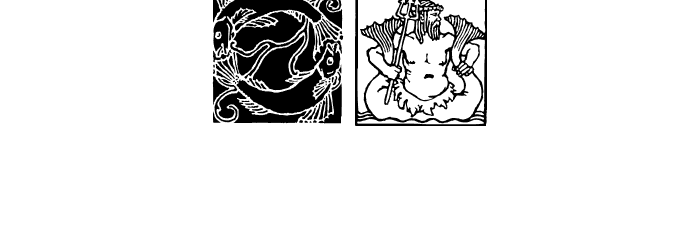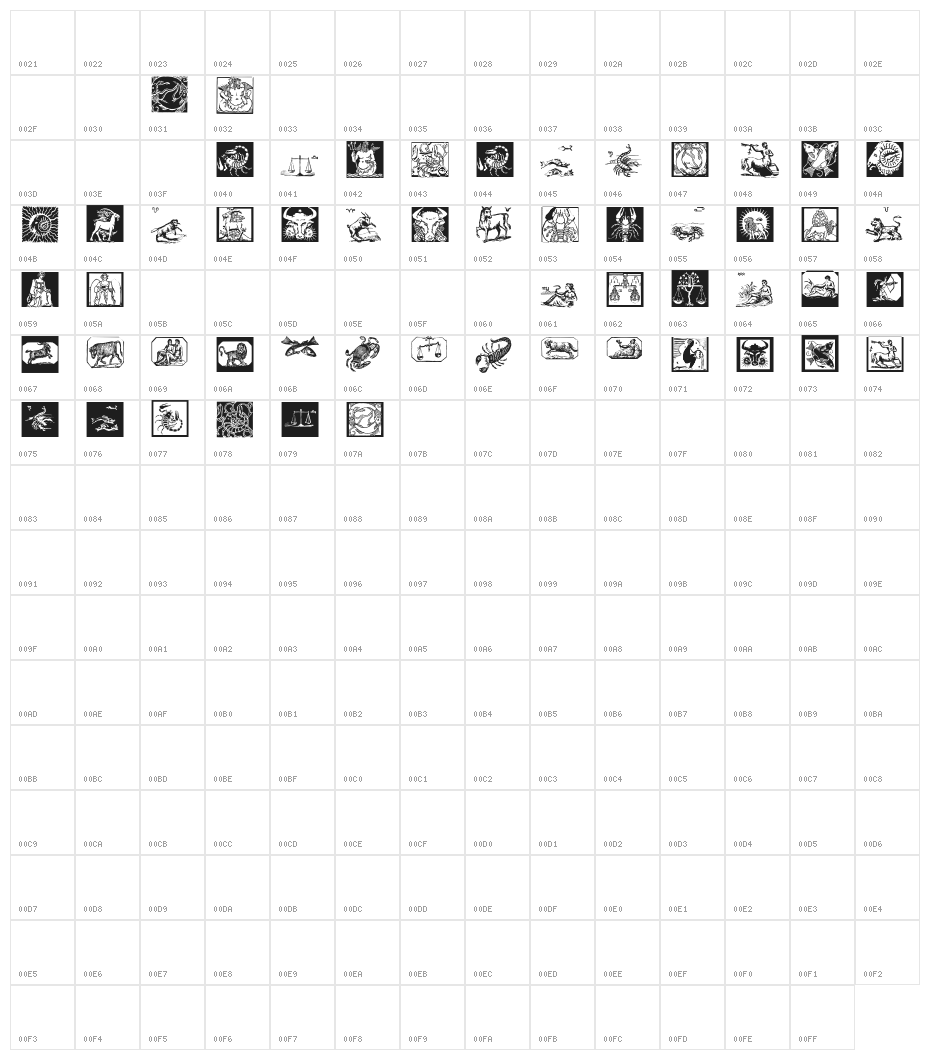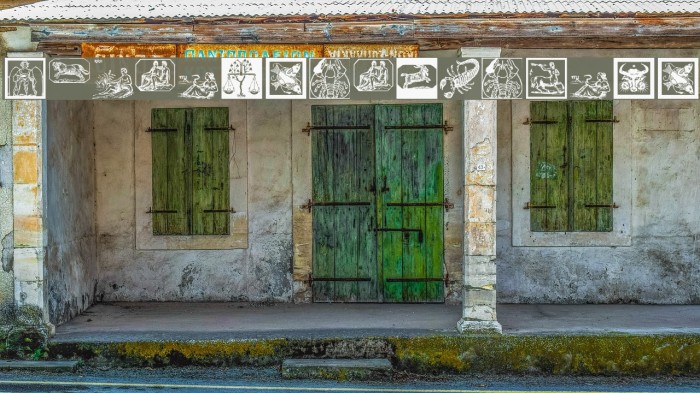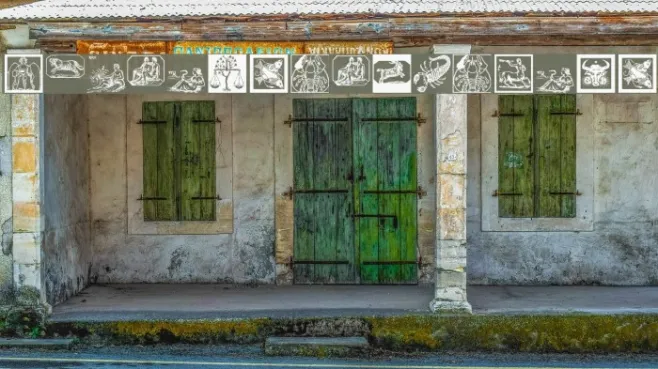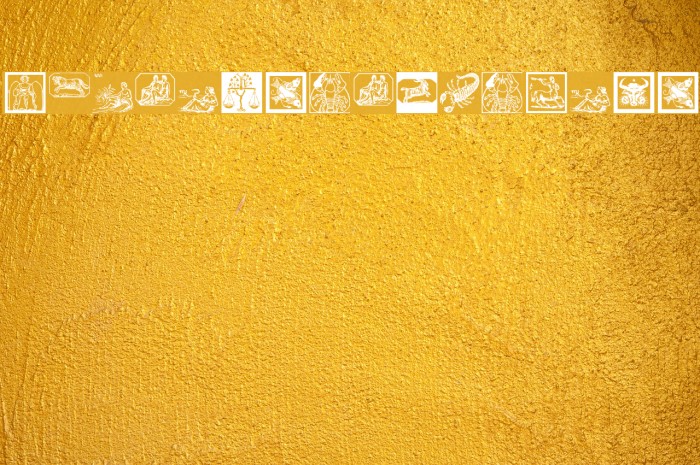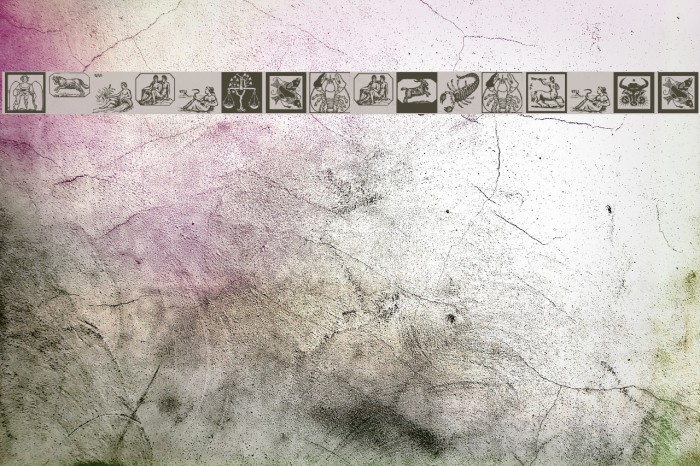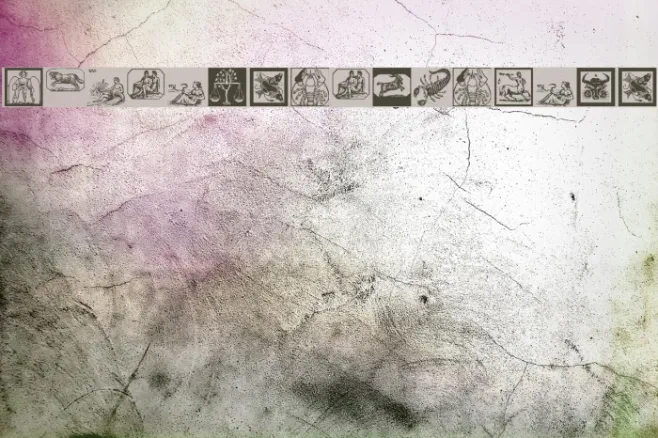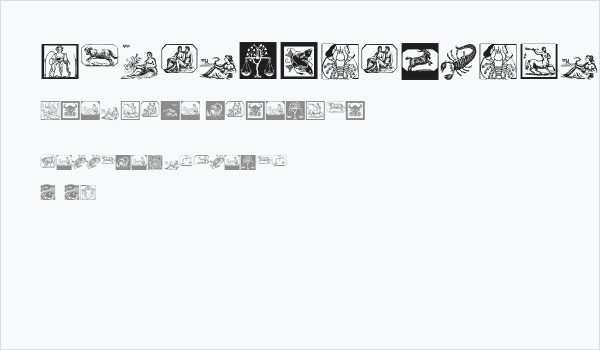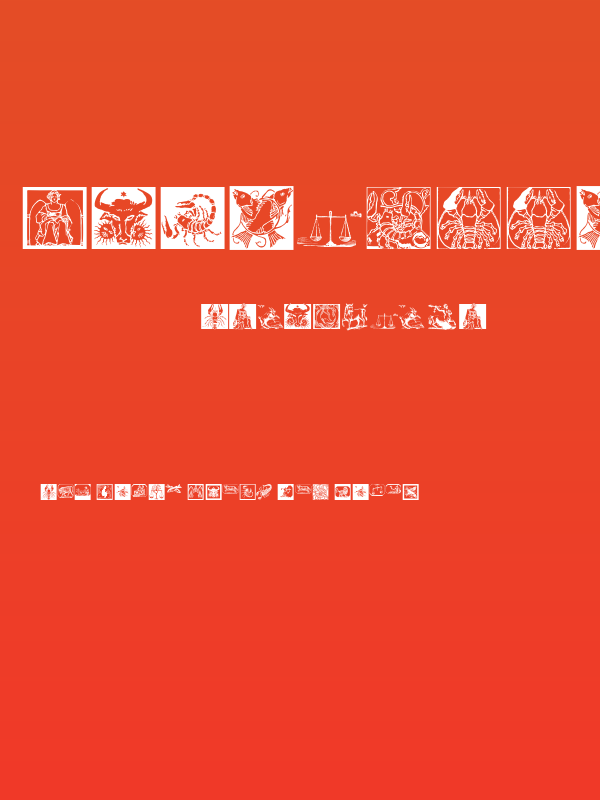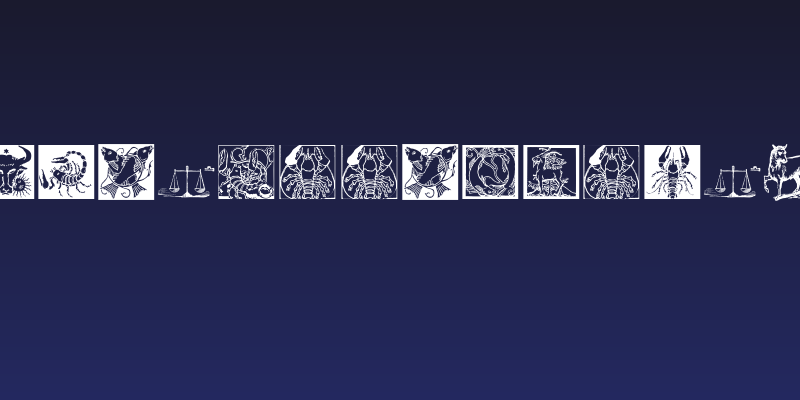
ZodiacsSignStars Font
ZodiacsSignStars Description
This set of images features intricate zodiac sign illustrations, each enclosed within a square frame. The designs are highly detailed, showcasing traditional representations of the zodiac symbols, such as the scales for Libra, the scorpion for Scorpio, and the fish for Pisces. Each symbol is rendered in a monochromatic style, emphasizing the intricate line work and artistic detailing. The overall aesthetic is reminiscent of classic woodcut or engraving techniques, lending a vintage and timeless feel to the collection. These images are not a traditional font but rather a series of decorative icons that capture the essence of each zodiac sign through artistic interpretation.
| Use Case | Decorative elements, Astrology-themed designs |
| Proposed Projects | These illustrations are ideal for use in astrology-themed projects, such as calendars, posters, or personalized horoscopes. They could also be used in graphic design projects that require a classic or mystical aesthetic. |